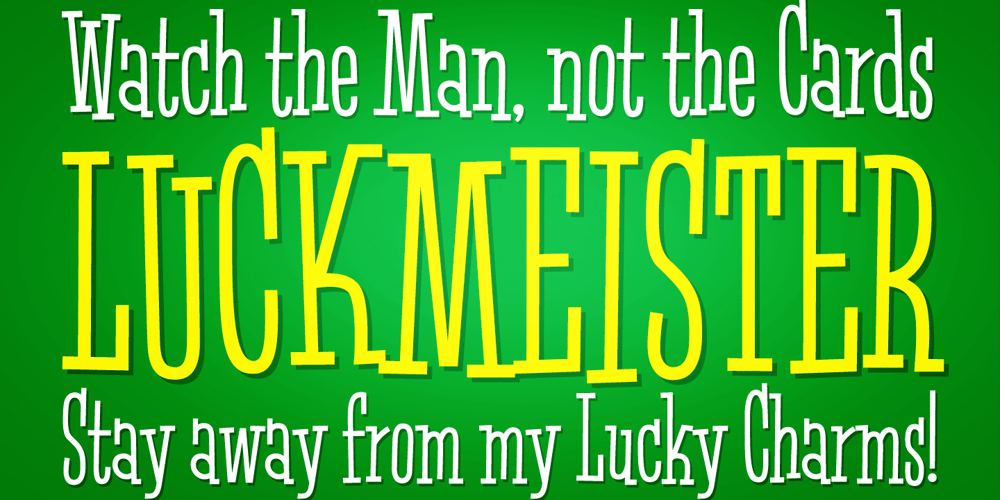
Luckmeister PB Font Family was designed by Phil Bracco and published by Pink Broccoli. Luckmeister PB contains 1 styles and family package options. From the vintage record cover, “Music from MR. LUCKY”, composed and conducted by Henry Mancini, comes this offbeat and full of life condensed serif typeface. A uniform stroke structure and a light baseline bounce give this typeface a festive yet serious duality of a personality.